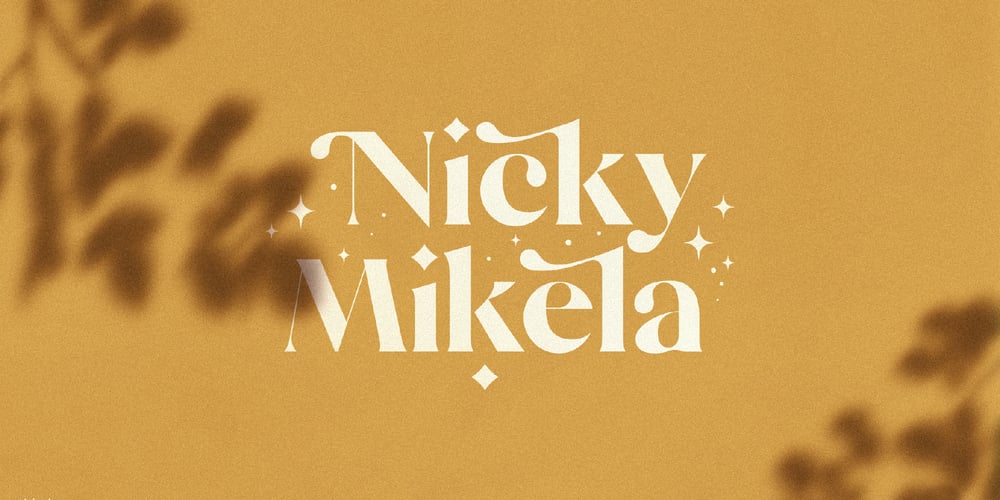
Mikela Font Family was designed by Kurt Harahap and published by Kaligra.co. Mikela contains 3 styles and family package options. Nicky Mikela is a Bold Minimalist Elegant Modern vintage font with beautiful ligatures, tons of special alternative glyphs, ornament and multilingual support. It’s a very versatile font that works great in large and small sizes. Perfect for branding projects, Logo design, Clothing Branding, product packaging, magazine headers, or simply as a stylish text overlay to any background image.HOW TO ACCESS ALTERNATE CHARACTERSOpen glyphs panel:In Adobe Photoshop go to Window – glyphsIn Adobe Illustrator go to Type – glyphsCheck out our website for more http://kaligra.co/